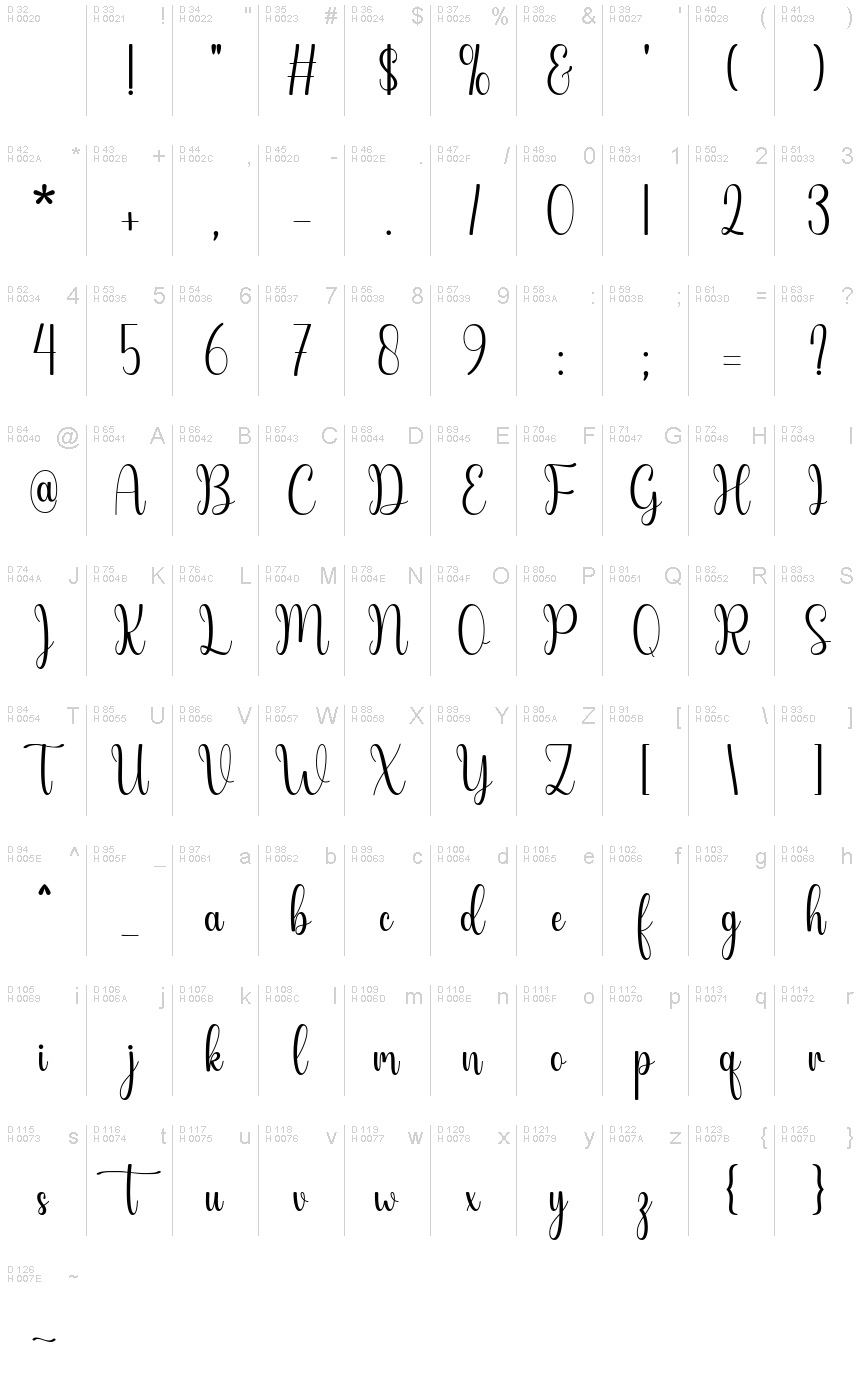
Tricky
Tricky, a font by Hardiboy Design, exudes charm through its authentic handwritten style. With an effortless flow and personal touch, it carries the warmth of human touch directly to the page. The letters dance with a casual grace, suggesting a playful yet refined personality. This font's expressive nature makes it ideal for designs that require a hint of intimacy and flair—perfect for invitations, branding, and editorial work where a touch of elegance is desired.
The distinctive strokes of Tricky bring life to text, offering designers a versatile tool for crafting messages that resonate on a personal level.